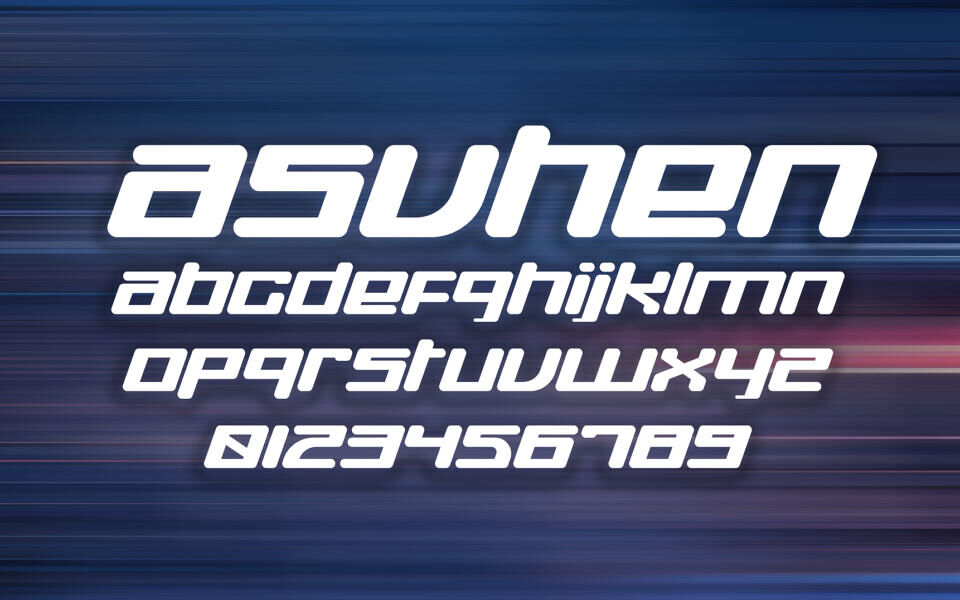
Asvhen Font
The “Asvhen” font by Uncarving Nation is a dynamic, futuristic typeface designed for bold impact. With its sleek, aerodynamic letterforms and sharp edges, it evokes a sense of speed and modernity, perfect for tech, gaming, or sci-fi themes.
The font includes a full alphabet, numbers, and special characters, all rendered in a consistent, high-energy style, making it ideal for logos, posters, and digital art where a cutting-edge vibe is desired.